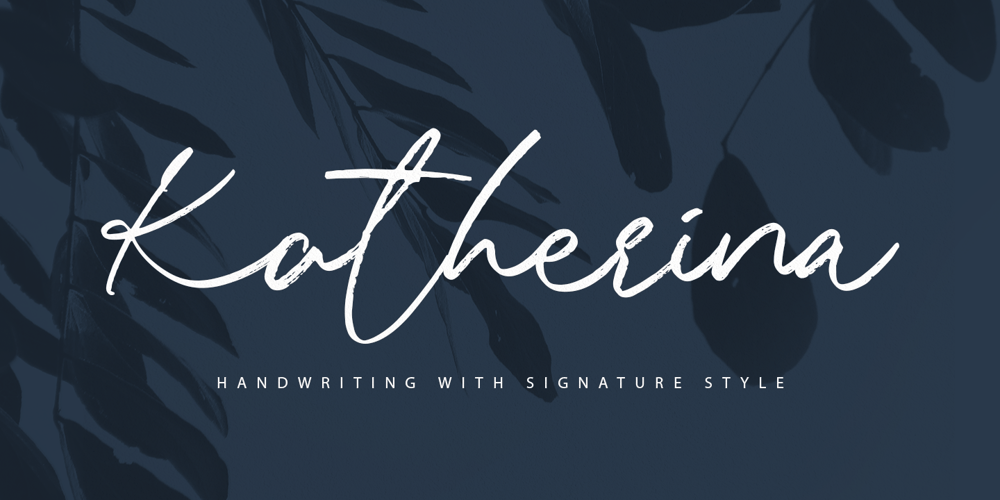
Katherina Signature Font Family was designed by Gitayogi Irhandi and published by Scratch Design. Katherina Signature contains 1 styles and family package options. Introducing, Katherina its a handwriting with signature style and brush texture. This font will look outstanding in any occasion design concept, whether it’s being used on colorful backgrounds or as a stand as a headline in the minimalist background!Katherina has alternative uppercase and lowercase letters that you can change by selecting the letter you want to change, and automatically there is an option to change the letters under the letter you selected.Katherina has multi-language support, swashes, and ligature dan you can apply in OpenType mode at adobe photoshop or adobe illustrator. Please enjoy the Katherina font and makes some stunning designs.